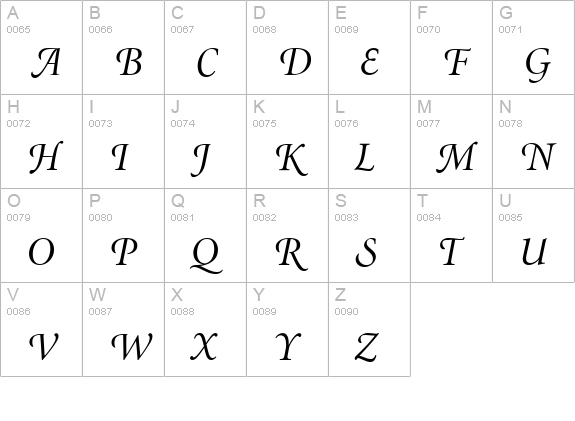
Atlantix Swash SSi Italic is a distinctive, italic variant in the Atlantix typeface family \xE2\x80\x94 well suited to design and typography projects.
Discover the elegant and stylish Atlantix Swash SSi Italic font, a dynamic typeface that exudes sophistication and grace. With its delicate curves and dramatic swashes, this font is perfect for adding a touch of flair to your designs. Whether you are creating invitations, logos, or branding materials, Atlantix Swash SSi Italic will elevate your project to new heights. What's even better is that this exquisite font is available for free download at FontsMarket.com. Now you can access this premium font without any cost, making it a must-have addition to your font collection. Embrace the beauty of Atlantix Swash SSi Italic and let your creativity shine with this stunning typeface.